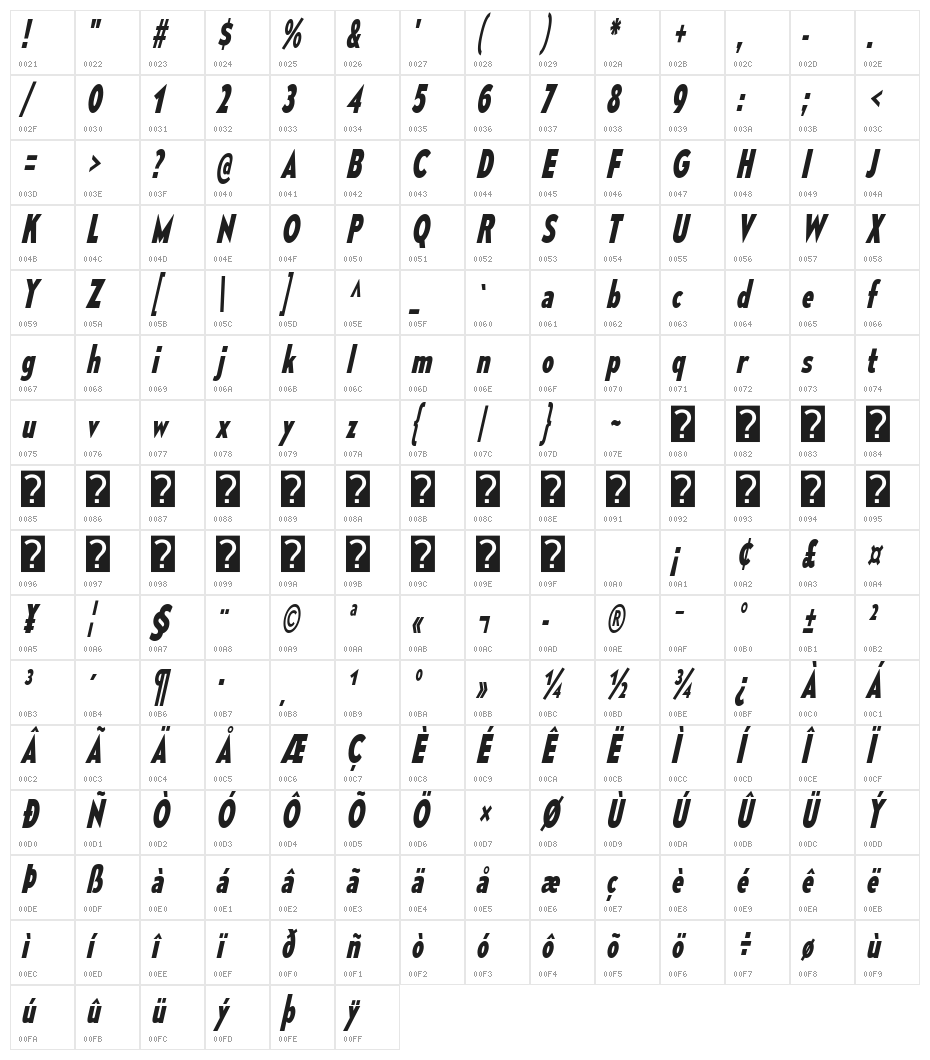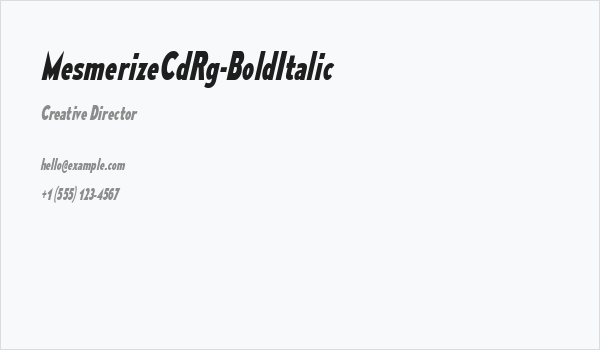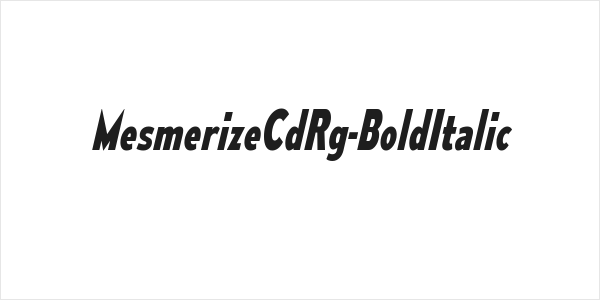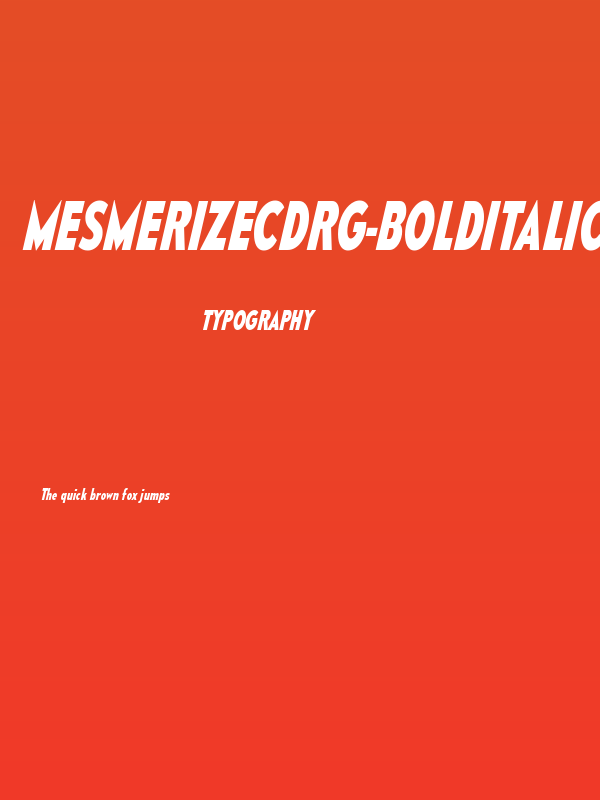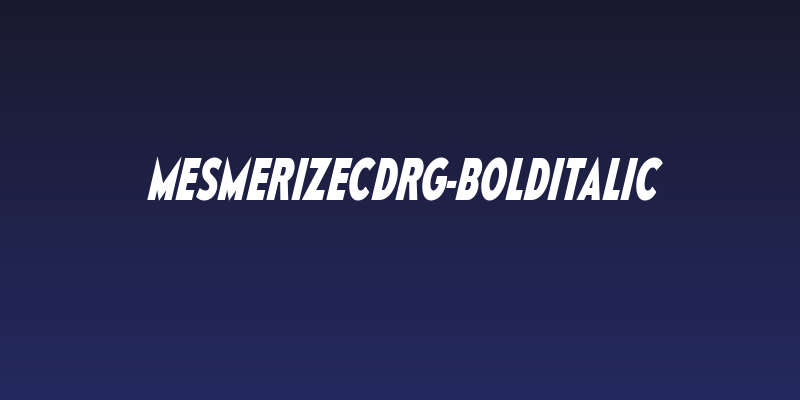
MesmerizeCdRg-BoldItalic Font
MesmerizeCdRg-BoldItalic Description
This font features a bold and italicized style with a strong presence. The characters are slanted, giving a dynamic and energetic feel. The strokes are thick and consistent, providing a sense of stability and confidence. The uppercase and lowercase letters maintain a uniform weight, while the numbers and special characters complement the overall design. The font's condensed width allows for efficient use of space, making it suitable for impactful headlines and attention-grabbing text.
| Proposed Projects | Ideal for branding, advertising, posters, and headlines that require a strong visual impact. |